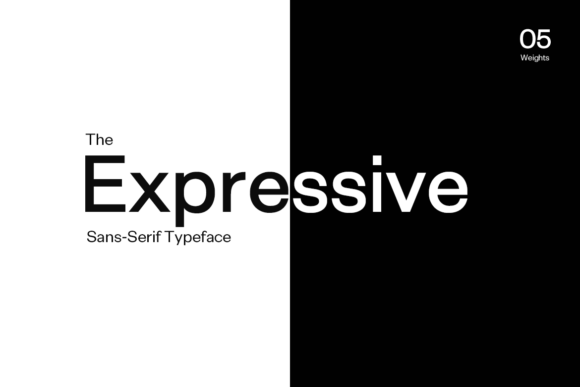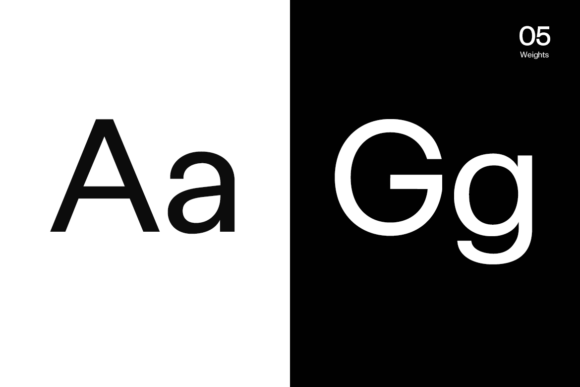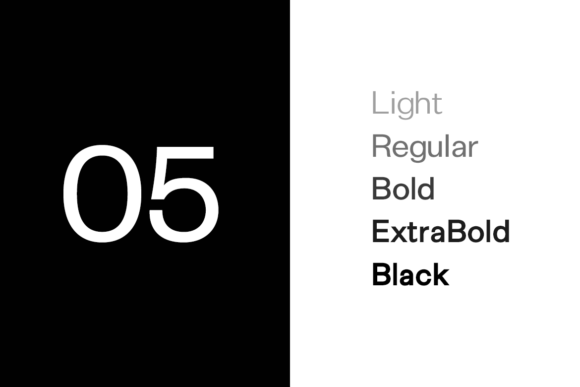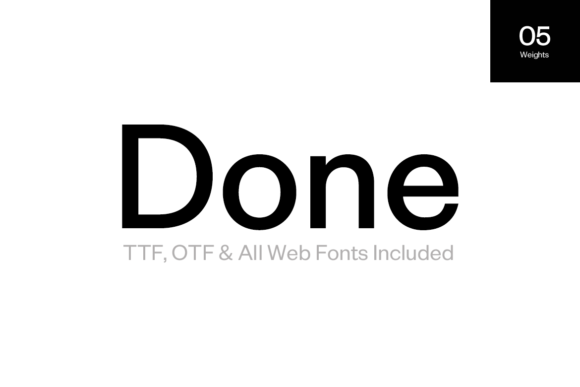
Introduction to Exensa Grotesk Family Font Font
Fonts play a crucial role in design, and the Exensa Grotesk Family Font font is a typeface that brings both character and versatility to any project. Whether you’re working on a branding project, a website, or a print design, the Exensa Grotesk Family Font font offers a unique style that can elevate your work.
The Exensa Grotesk is an authentic sans serif typeface inspired by Swiss Design and some of worldβs most elegant typefaces that keep the expressive nature of a premium font at itβs level best.
It comes with 5 weights; regular, black, bold, light, and extra bold Itβs perfect to create nicely looking headlines as well as page content.
Key Features of Exensa Grotesk Family Font Font
Why Choose Exensa Grotesk Family Font Font?
The Exensa Grotesk Family Font font is more than just a typeface β it’s a design tool that helps you communicate your message with style and clarity. Its unique character set and versatile design make it suitable for a wide range of applications, from elegant invitations to bold headlines.
With its carefully crafted letterforms and balanced proportions, the Exensa Grotesk Family Font font ensures readability and visual appeal across all mediums.
What makes Exensa Grotesk Family Font font special?
The Exensa Grotesk Family Font font stands out with its unique design, exceptional readability, and versatility across various design applications.